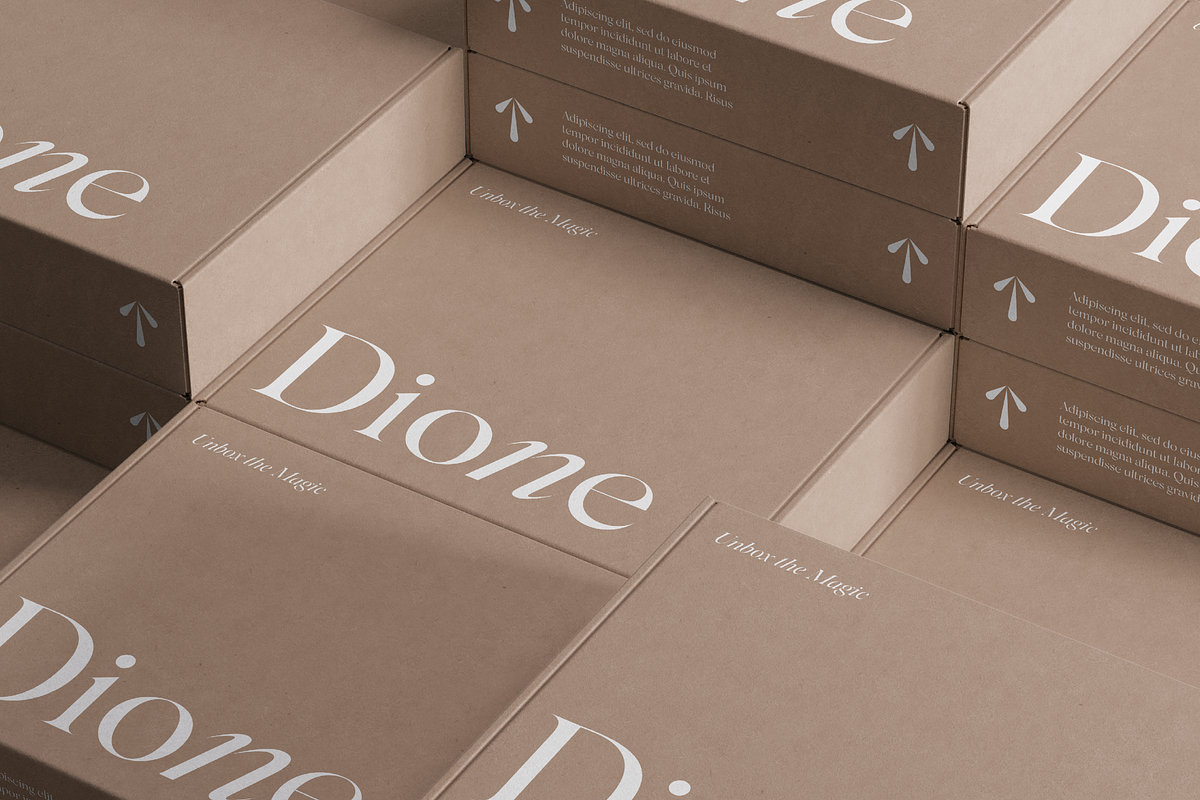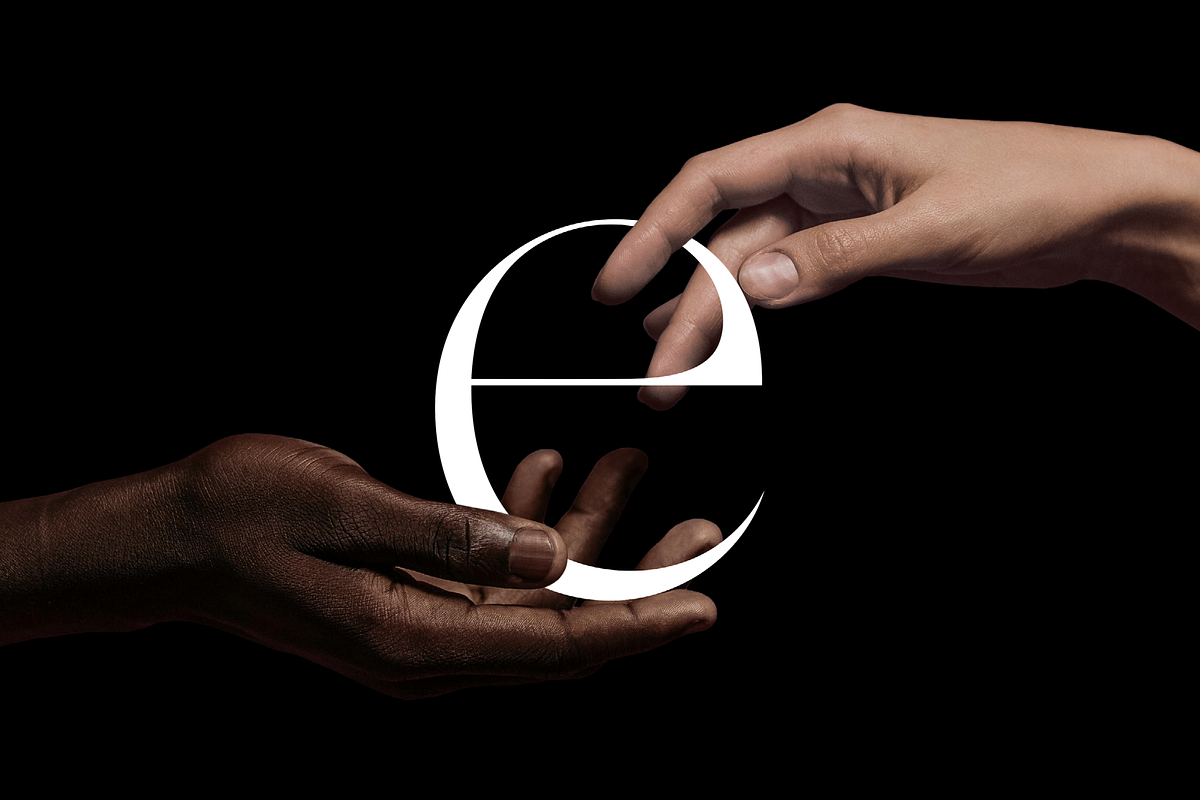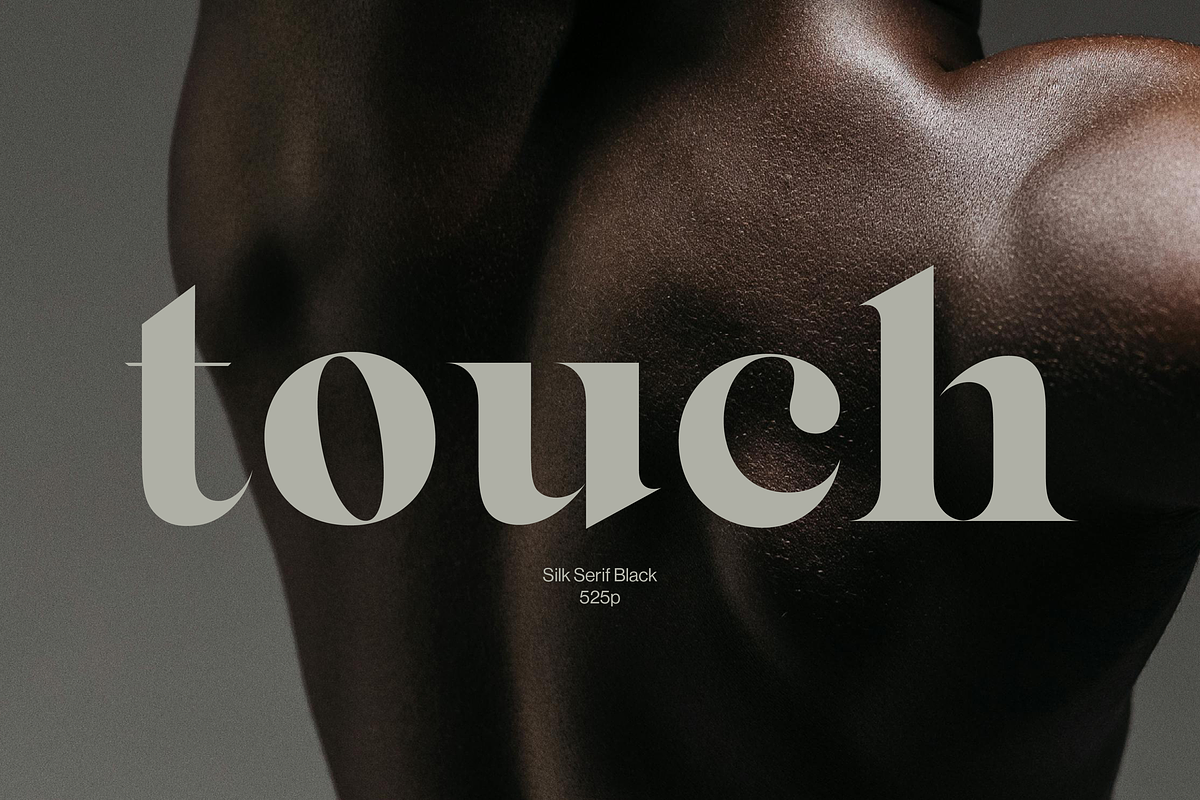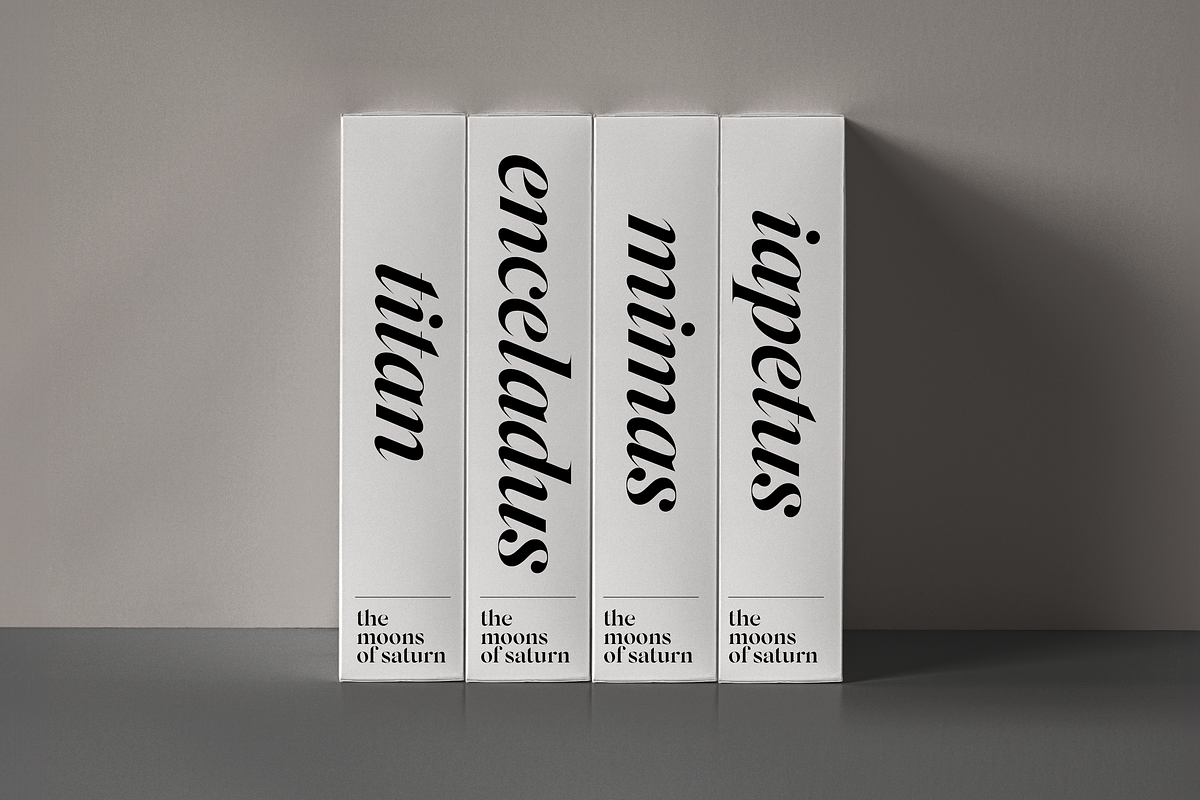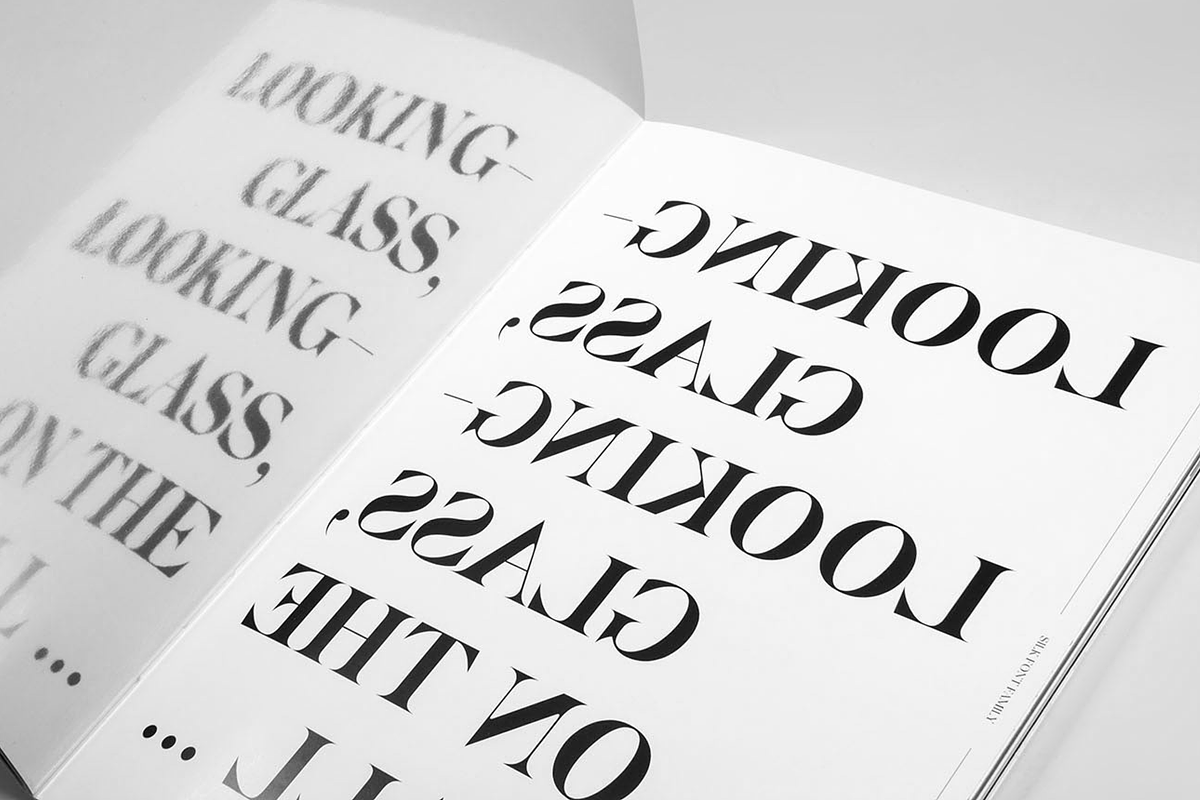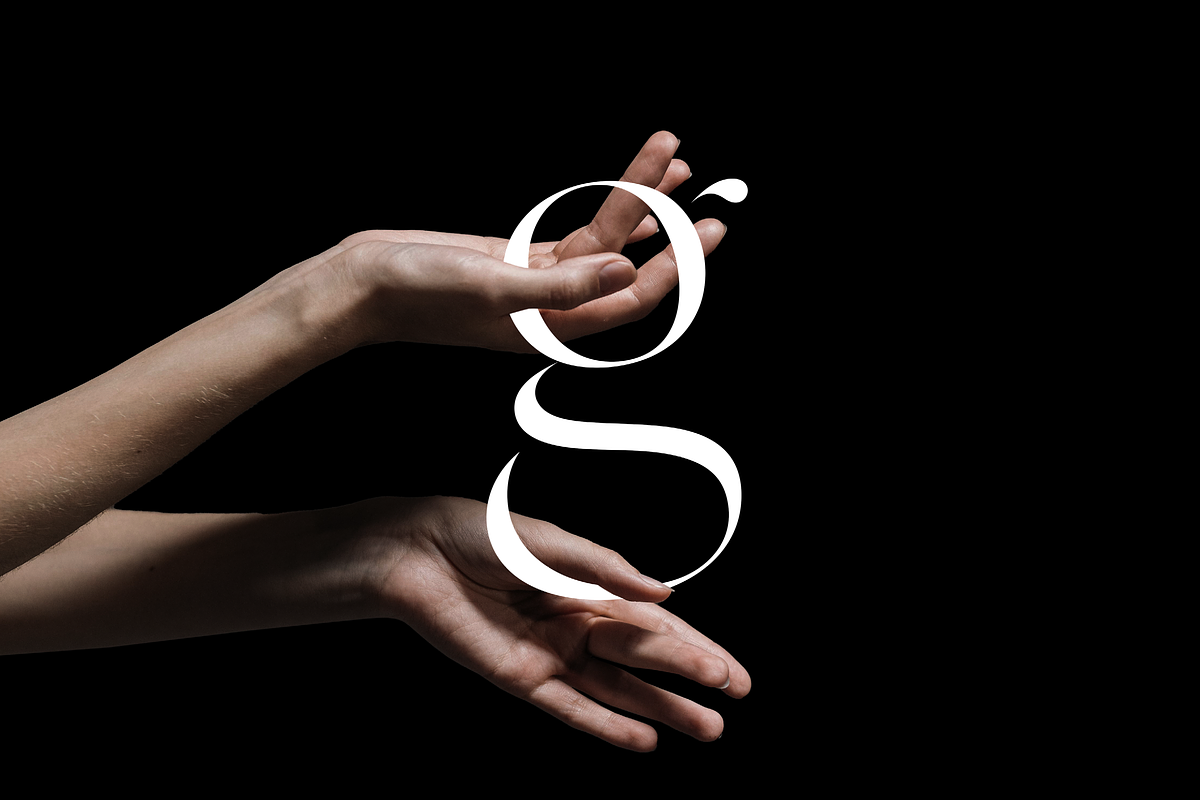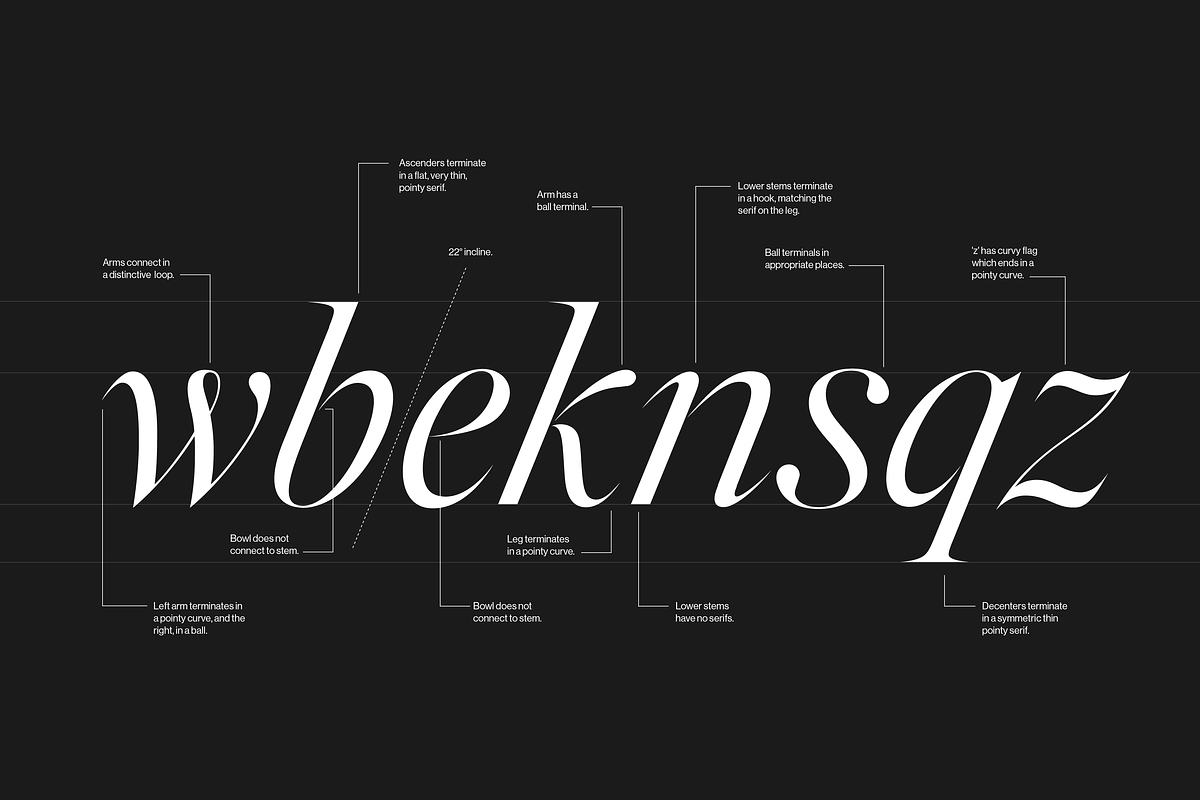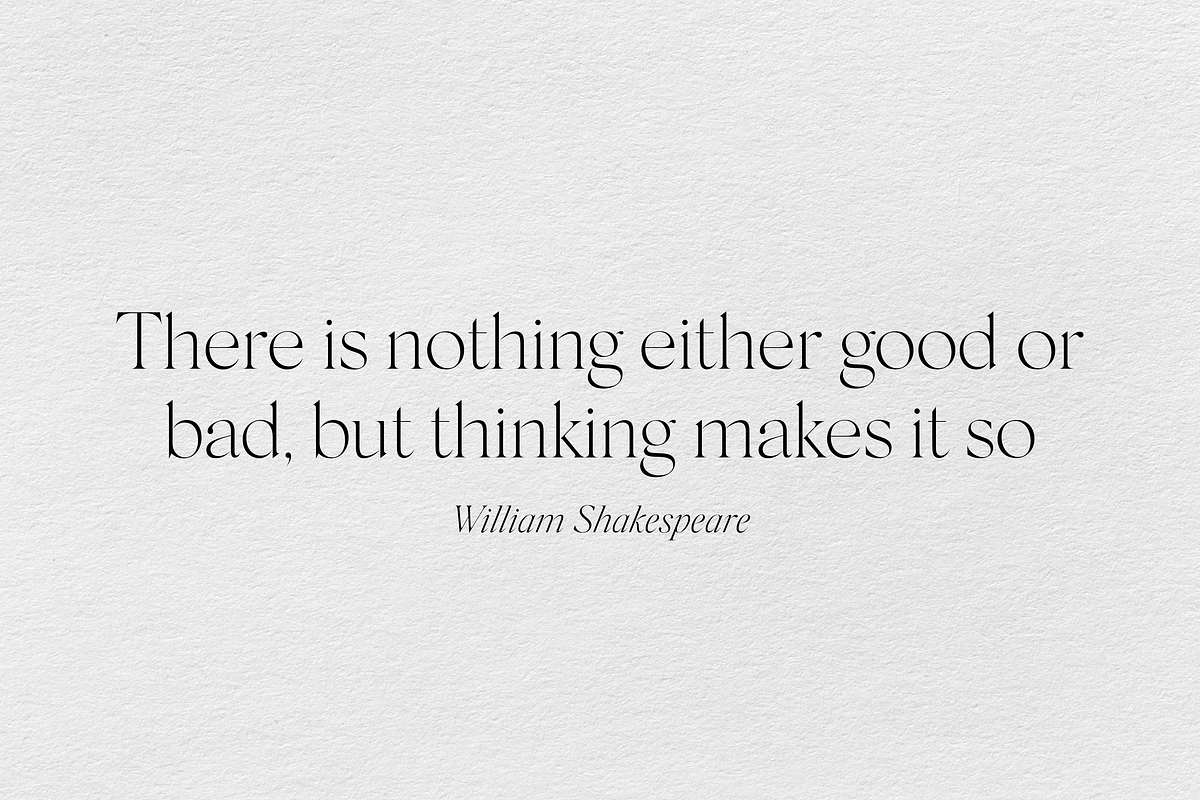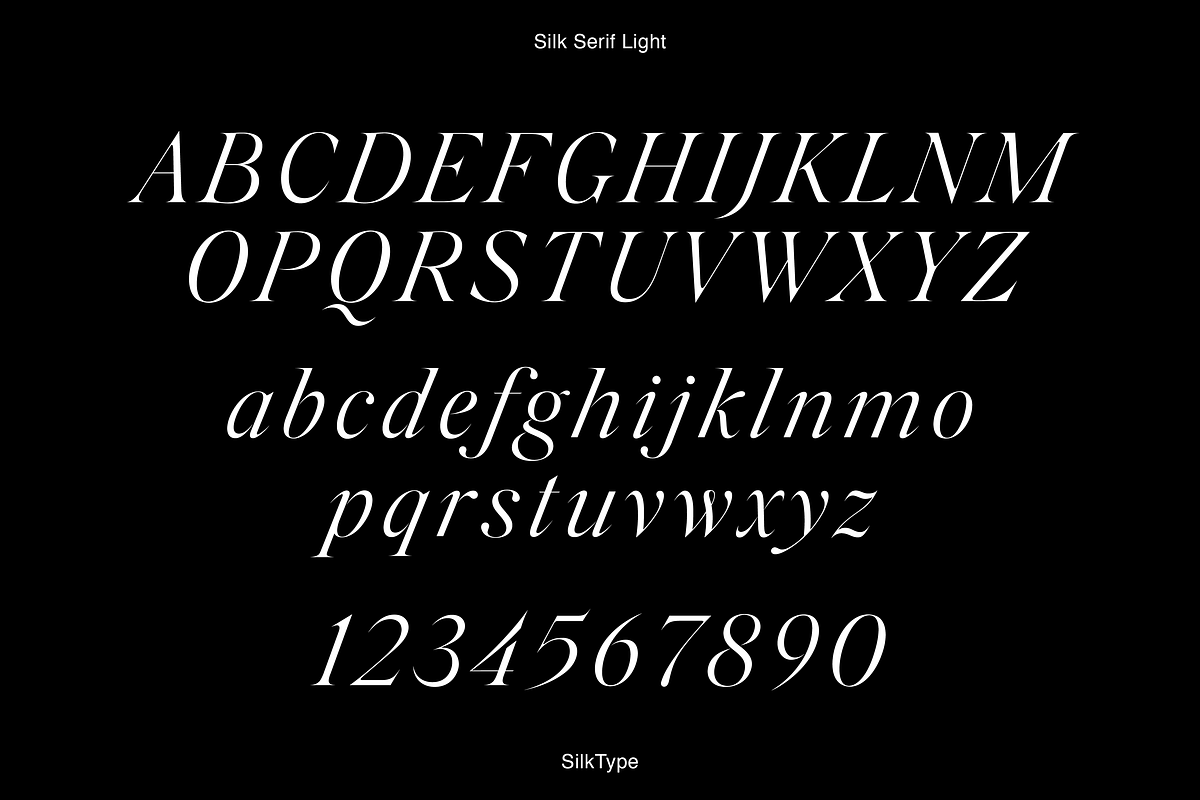
Silk Serif - 14 font family
Silk Serif is a high-contrast typeface with thin, pointy, heavily bracketed serifs, ball terminals in the appropriate places, and bracketed junctions in various letterforms. Its most distinctive feature is the disconnection between the bowls and the stems—though the bowl is so close to the stem, it creates the illusion of connection. Silk Serif is delicate and legible, but above all, it is sophisticated.
The full family includes 14 styles, ranging from Extra Light to Black, with matching italics for every weight. Whether you're designing for editorial layouts, branding, or signage, the complete range gives you maximum flexibility and control.
In 2025, Silk Serif was updated with refined forms, improved spacing, smoother italics, and the addition of standard ligatures and decorative shapes, further enhancing its versatility and elegance.